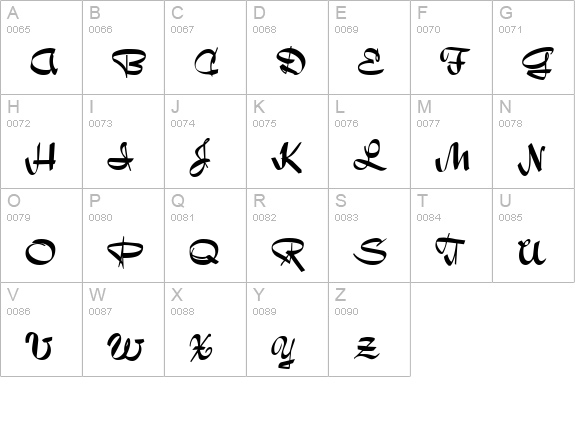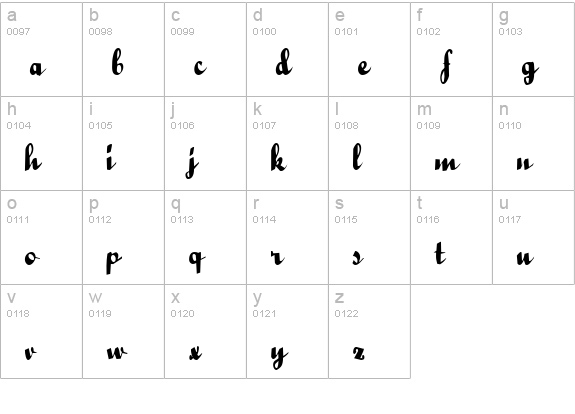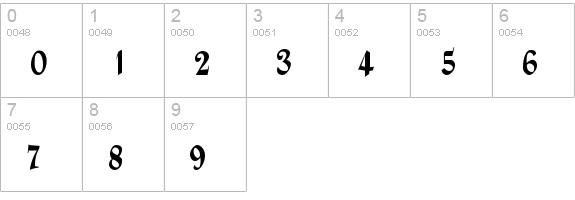
Bailey Script Regular is the standard, neutral variant in the Bailey typeface family \xE2\x80\x94 well suited to general body text, paragraphs, and standard typographic work.
Bailey Script Regular font is a beautifully crafted script typeface that exudes elegance and sophistication. Its flowing curves and delicate strokes make it perfect for adding a touch of charm to your designs. Whether you're creating wedding invitations, branding materials, or any other project that calls for a touch of grace, Bailey Script Regular is sure to impress. The best part? This stunning font is available for free download at FontsMarket.com. Simply visit the website to get your hands on this gorgeous typeface and start incorporating its timeless beauty into your creations today. Don't miss out on the opportunity to enhance your designs with the exquisite Bailey Script Regular font, now easily accessible and completely free.